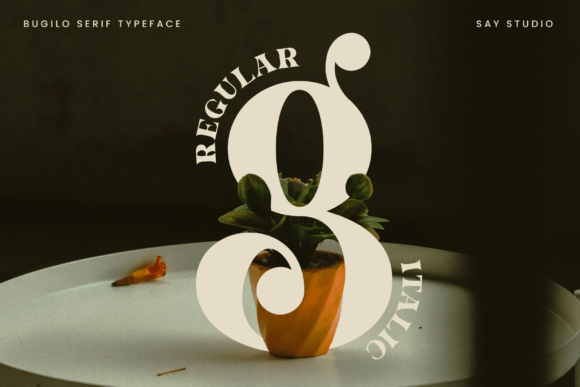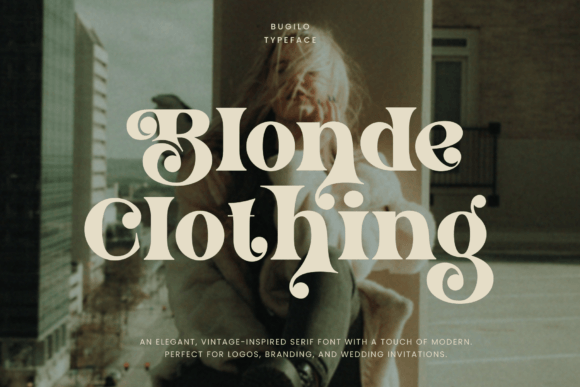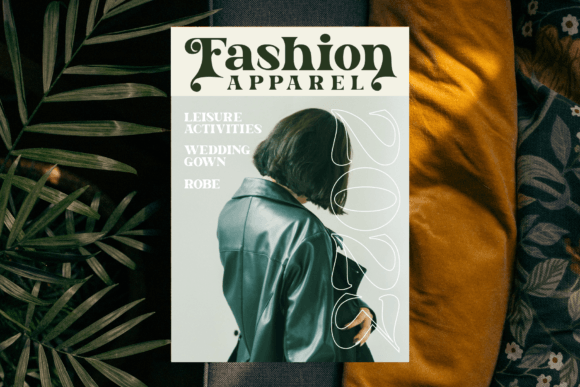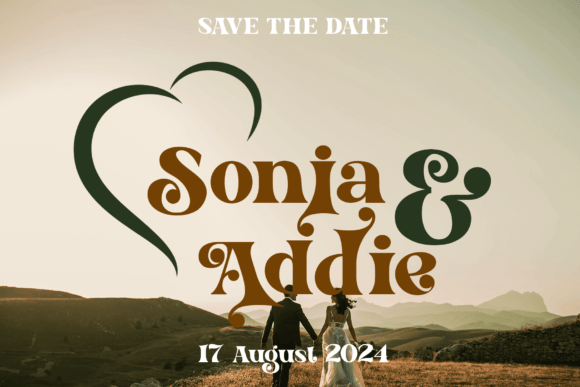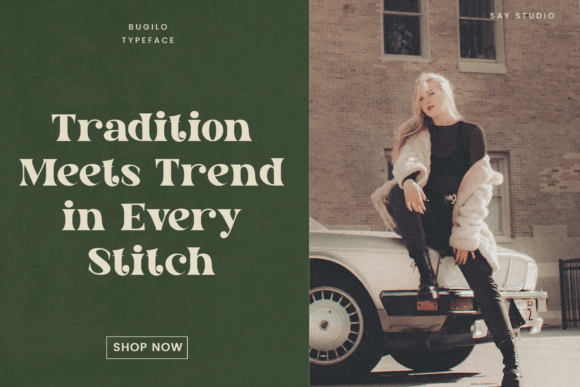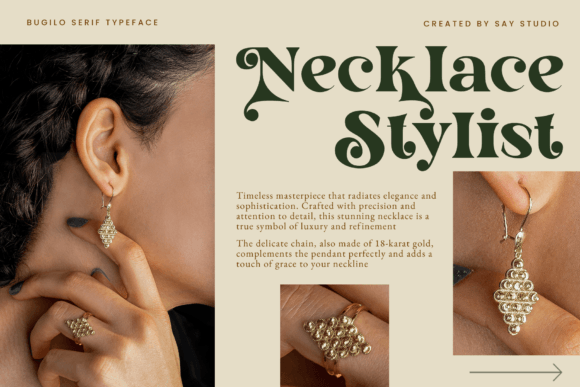
Introducing Bugilo Font: The Ultimate Vintage Serif Font for Designers and Crafters
Are you looking for a font that can add a touch of nostalgia and vintage charm to your designs? Look no further than Bugilo Font! This beautifully crafted serif font is designed to bring a sense of playfulness and retro flair to any design project. In this article, we’ll dive into the features and benefits of Bugilo Font, and explore how it can elevate your designs to the next level.
A Font that Feels Playfully Nostalgic
Bugilo Font is a masterfully designed serif font that exudes a sense of nostalgia and vintage charm. Its unique character set and elegant lines make it perfect for designers and crafters looking to add a touch of retro flair to their work. Whether you’re creating logos, quotes, posts, or blog posts, Bugilo Font is the perfect choice to add a special touch to your designs.
Bugilo Font is incredibly versatile and can be used for a wide range of design projects. From branding projects and magazine imagery to wedding invitations and social media posts, this font can help you create stunning designs that capture the attention of your audience. The font comes with alternatives, allowing you to experiment with different styles and create unique designs that reflect your brand’s personality.
One of the standout features of Bugilo Font is its PUA (Private Use Area) encoding. This means that you can access all of the glyphs and swashes with ease, giving you complete creative control over your designs. With PUA encoding, you can easily insert special characters, ligatures, and other unique features that will take your designs to the next level.
Bugilo Font is perfect for designers and crafters who want to add a touch of vintage charm to their work. Whether you’re a professional designer or a DIY crafter, this font is easy to use and can help you create stunning designs that stand out from the crowd. The font is also highly legible, making it perfect for body text and other applications where readability is key.
Key Features of Bugilo Font
- Serif font with a vintage aesthetic
- Comes with alternatives for added versatility
- Perfect for logos, quotes, posts, blog posts, and more
- Highly legible and easy to read
- Masterfully designed to become a true favorite
Tips and Tricks for Getting the Most out of Bugilo Font
Bugilo Font is a beautifully crafted serif font that can add a touch of vintage charm to any design project. With its PUA encoding, alternatives, and highly legible design, this font is perfect for designers and crafters looking to create stunning designs that stand out from the crowd. Whether you’re creating logos, quotes, posts, or blog posts, Bugilo Font is the perfect choice to add a special touch to your designs.